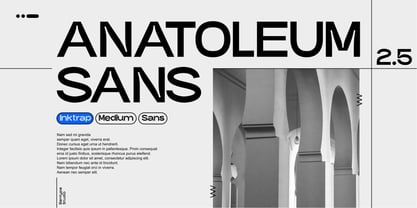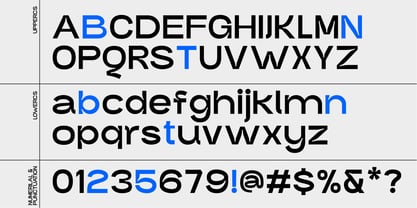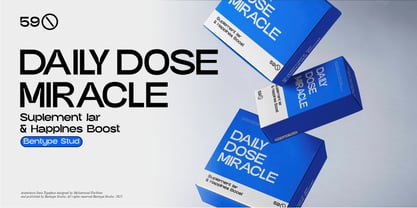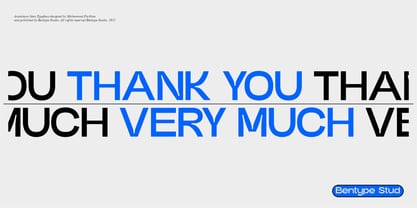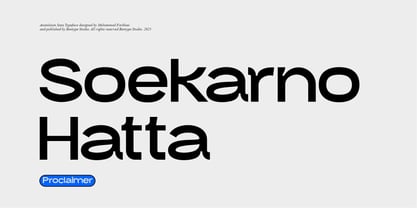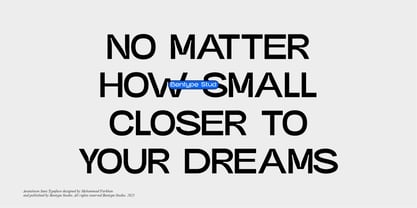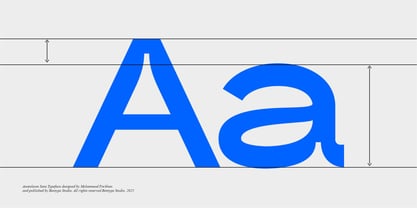
Anatoleum
by Bentype
The Anatoleum Font Family was designed by Muhammad Farkhan and published by Bentype. Anatoleum contains 1 styles. More about this family
Designers: Muhammad Farkhan
Foundry: Bentype